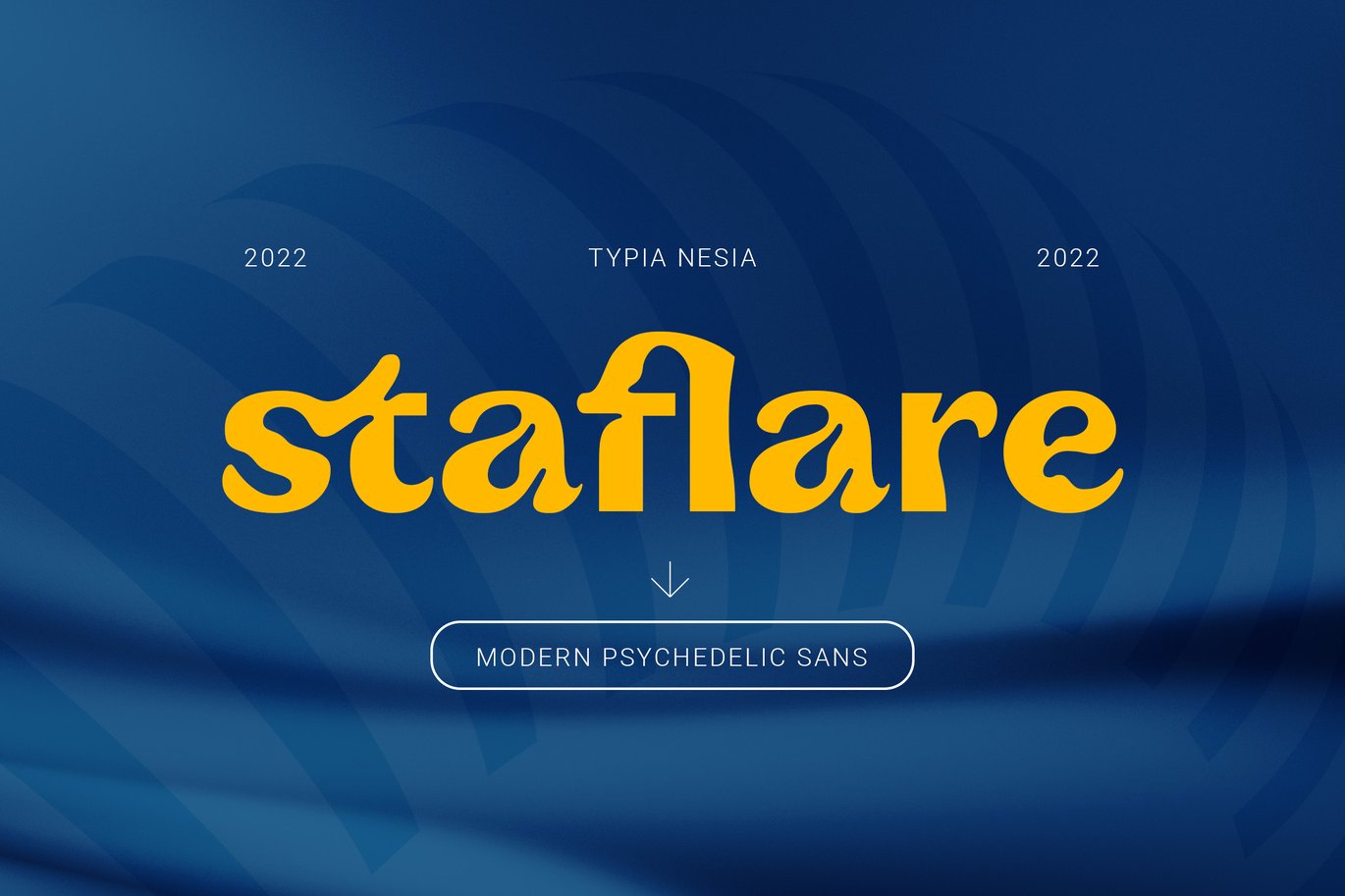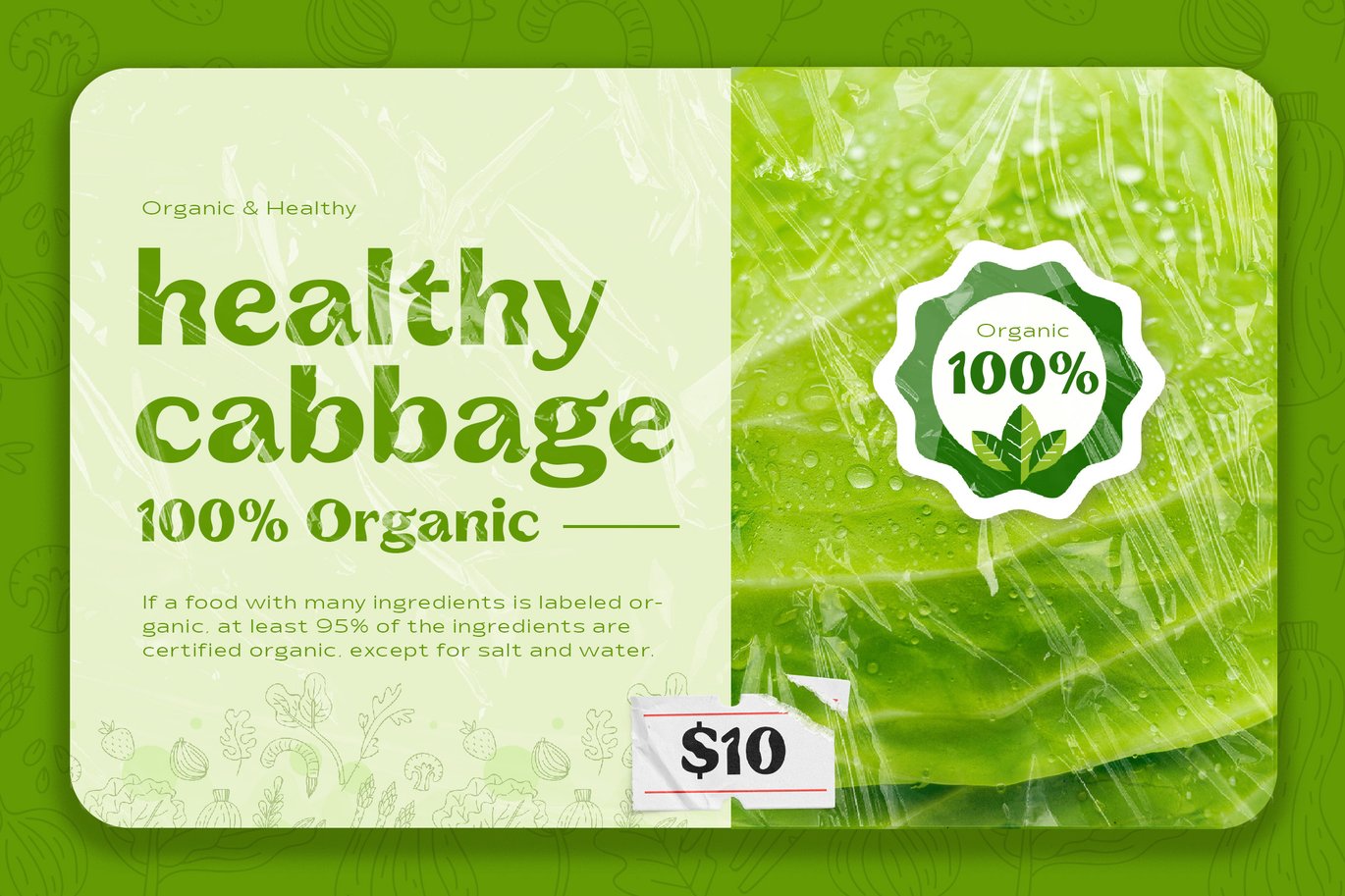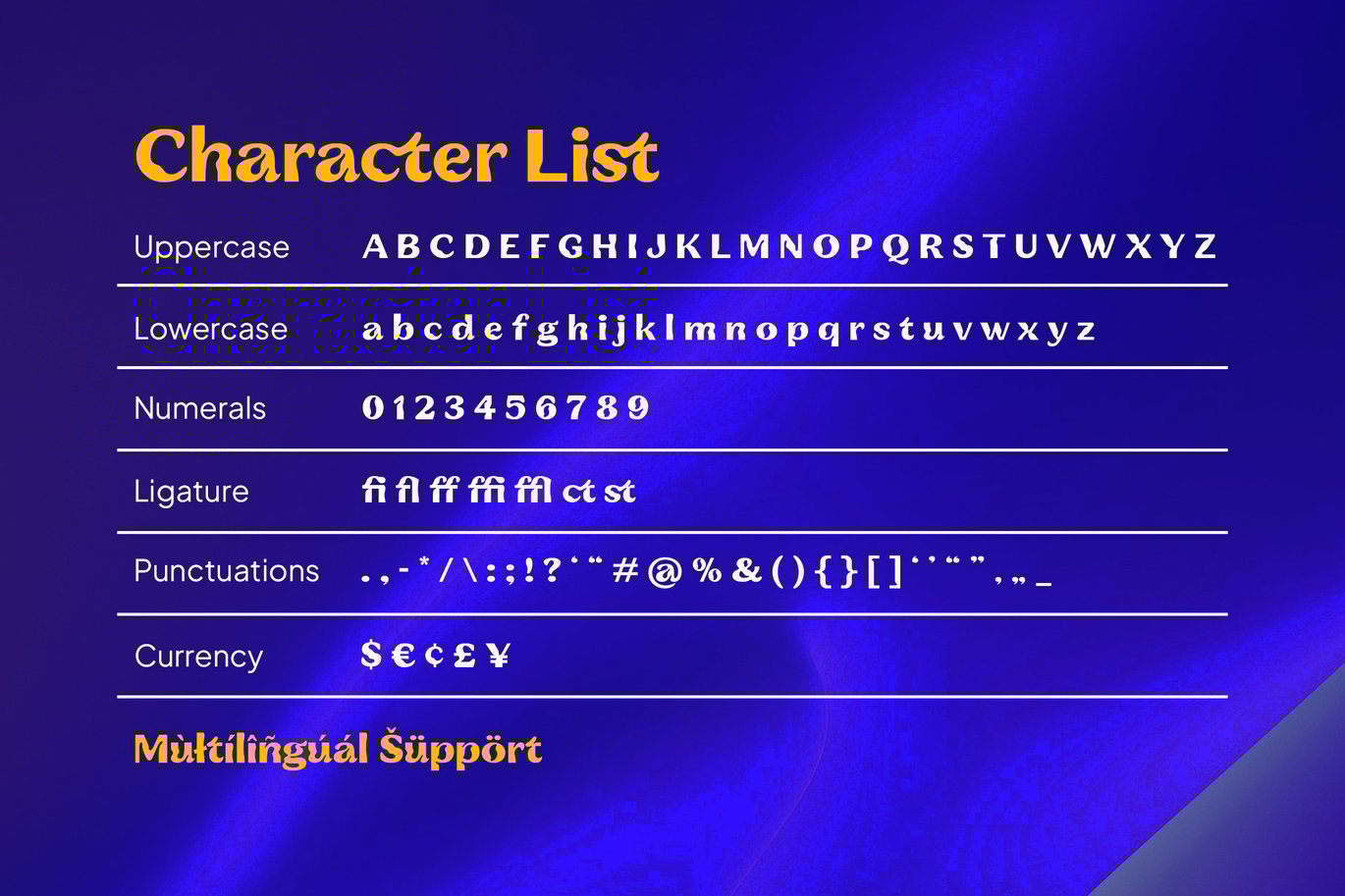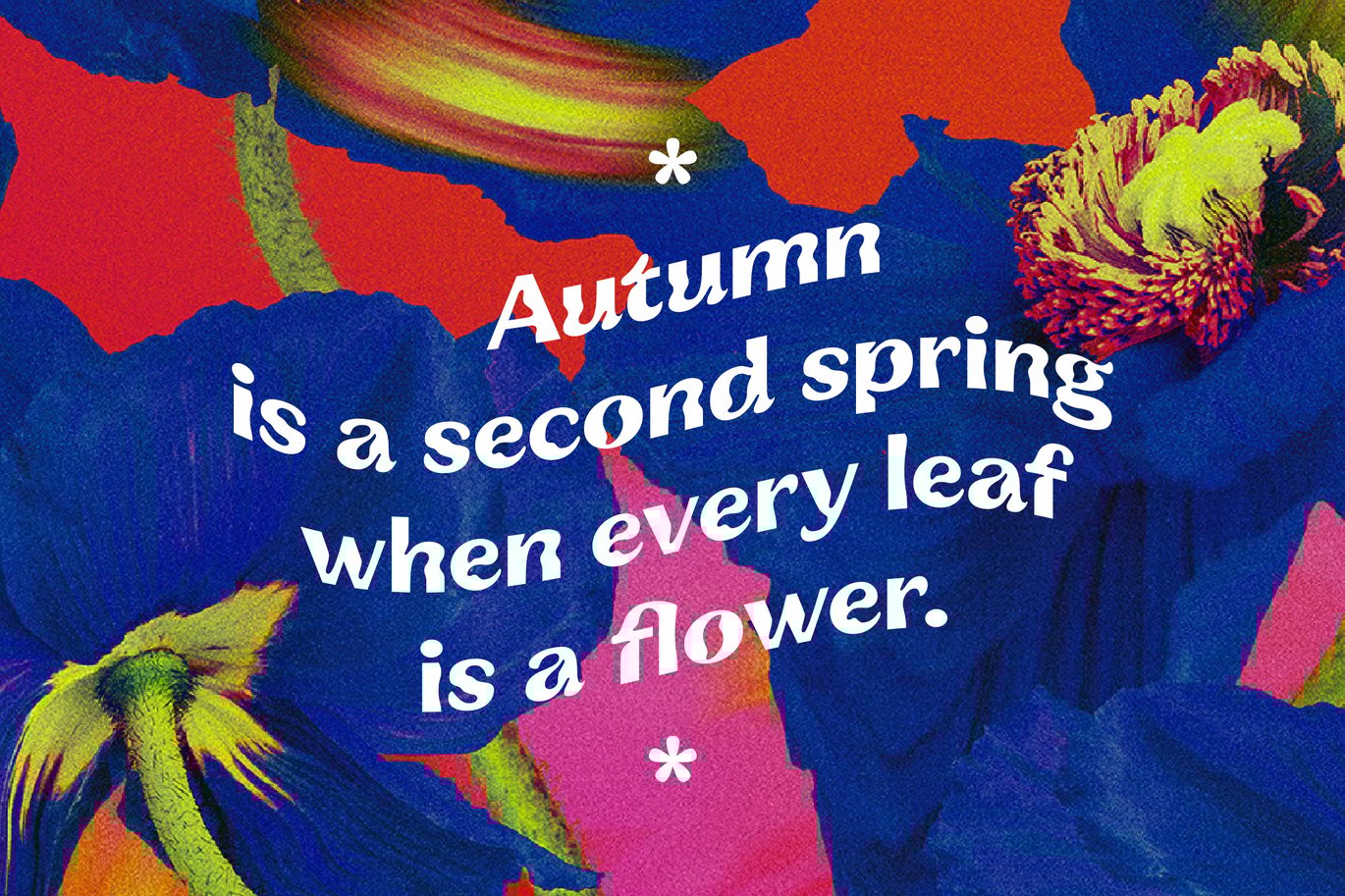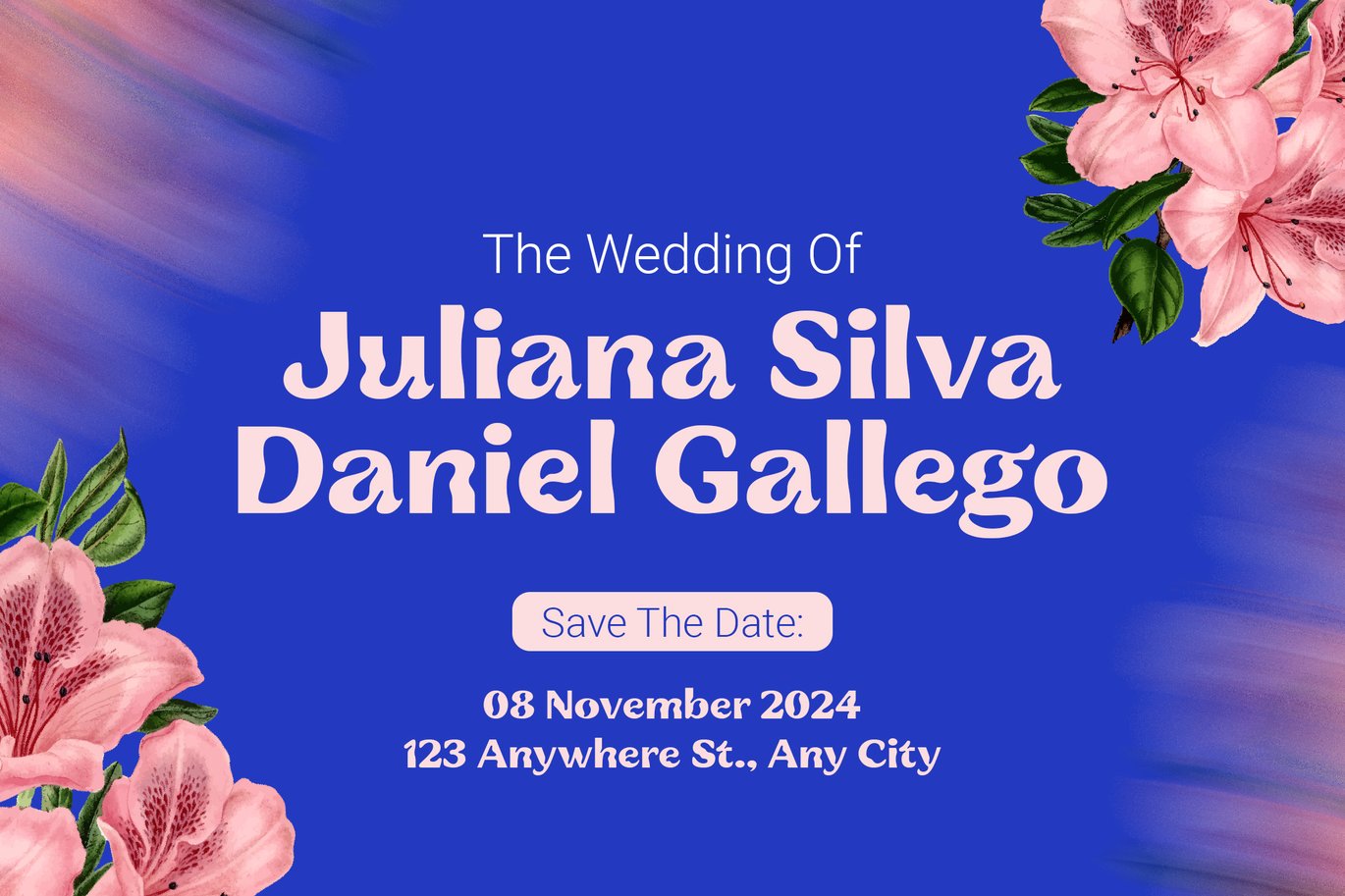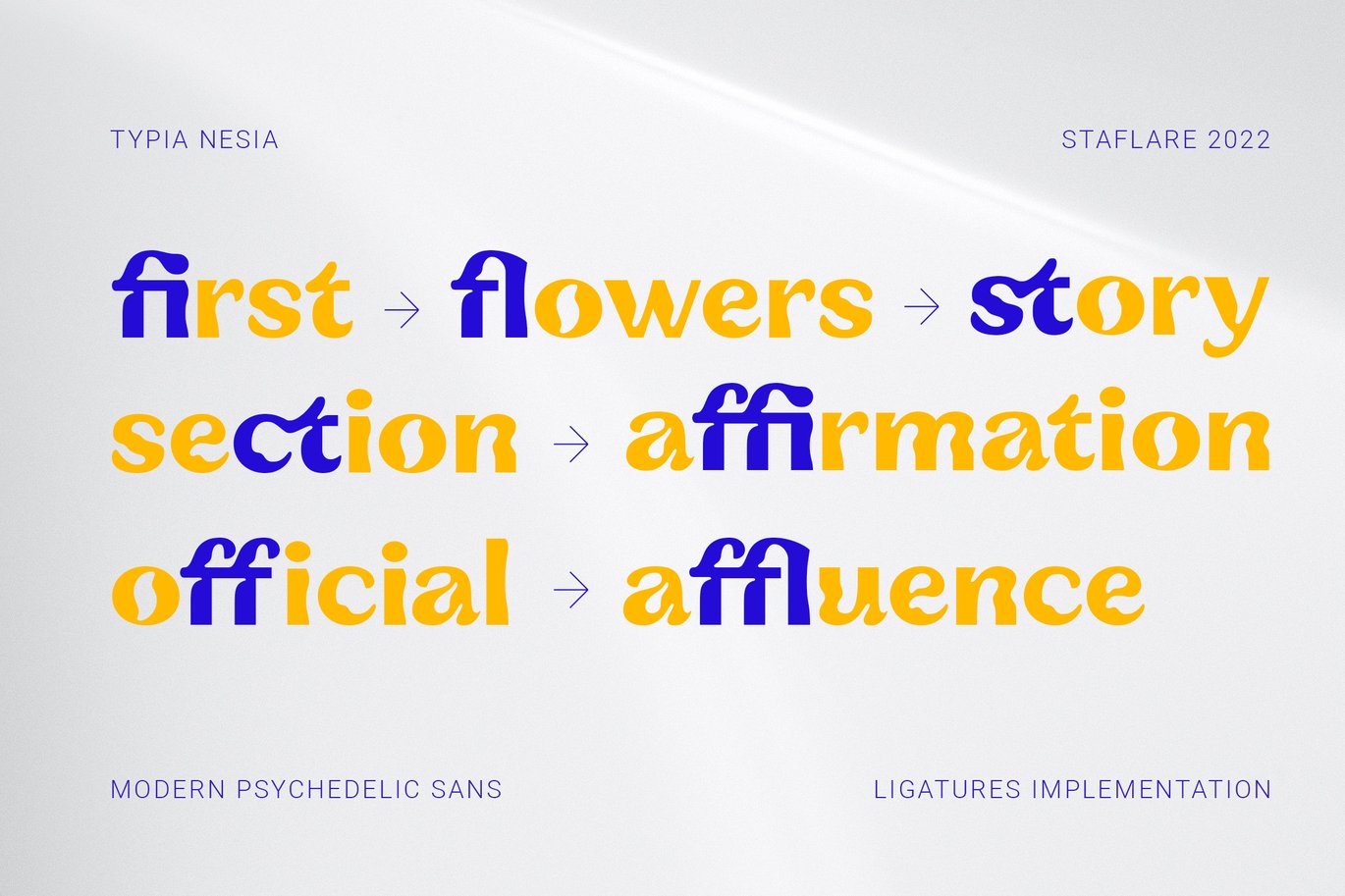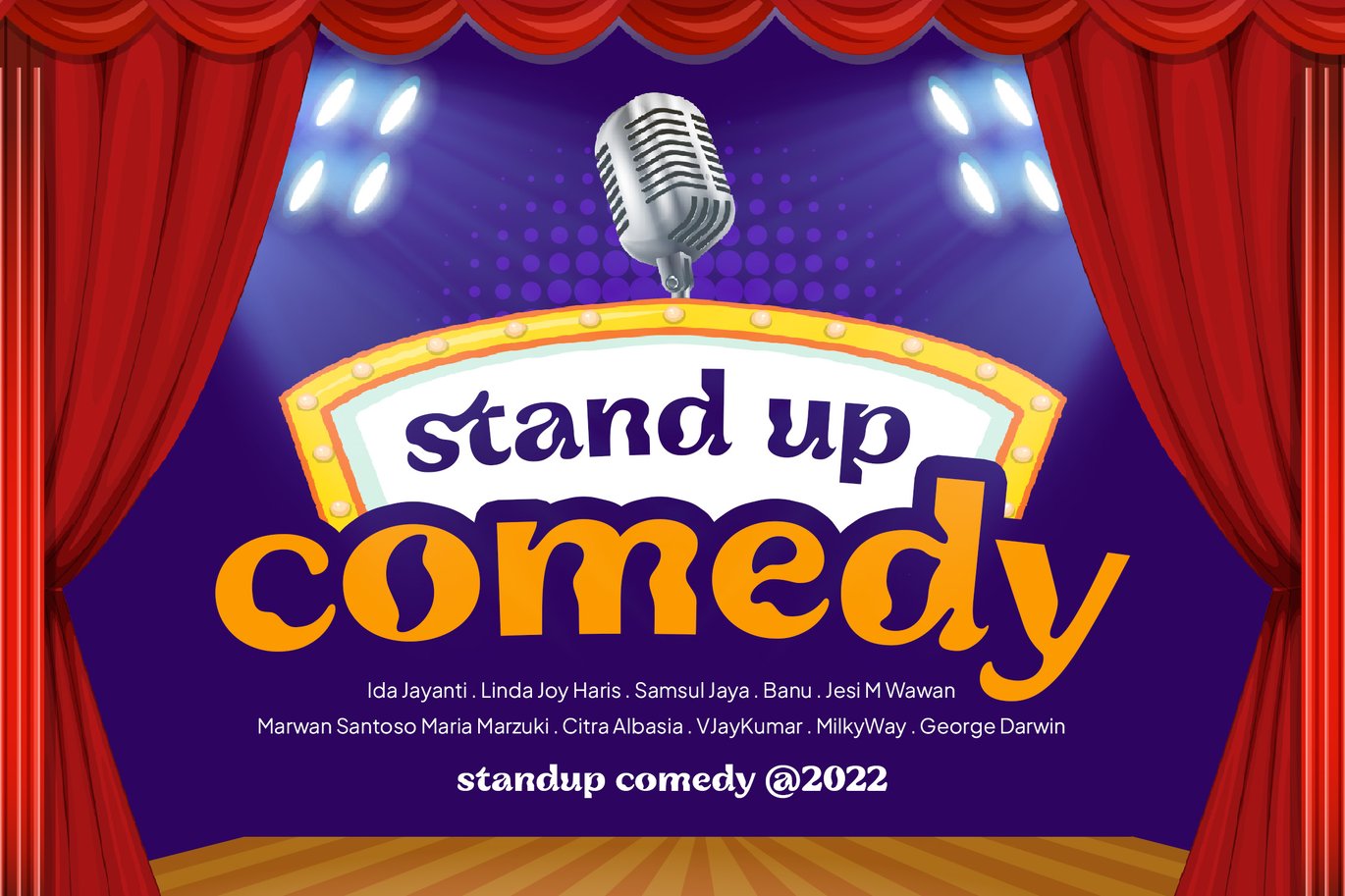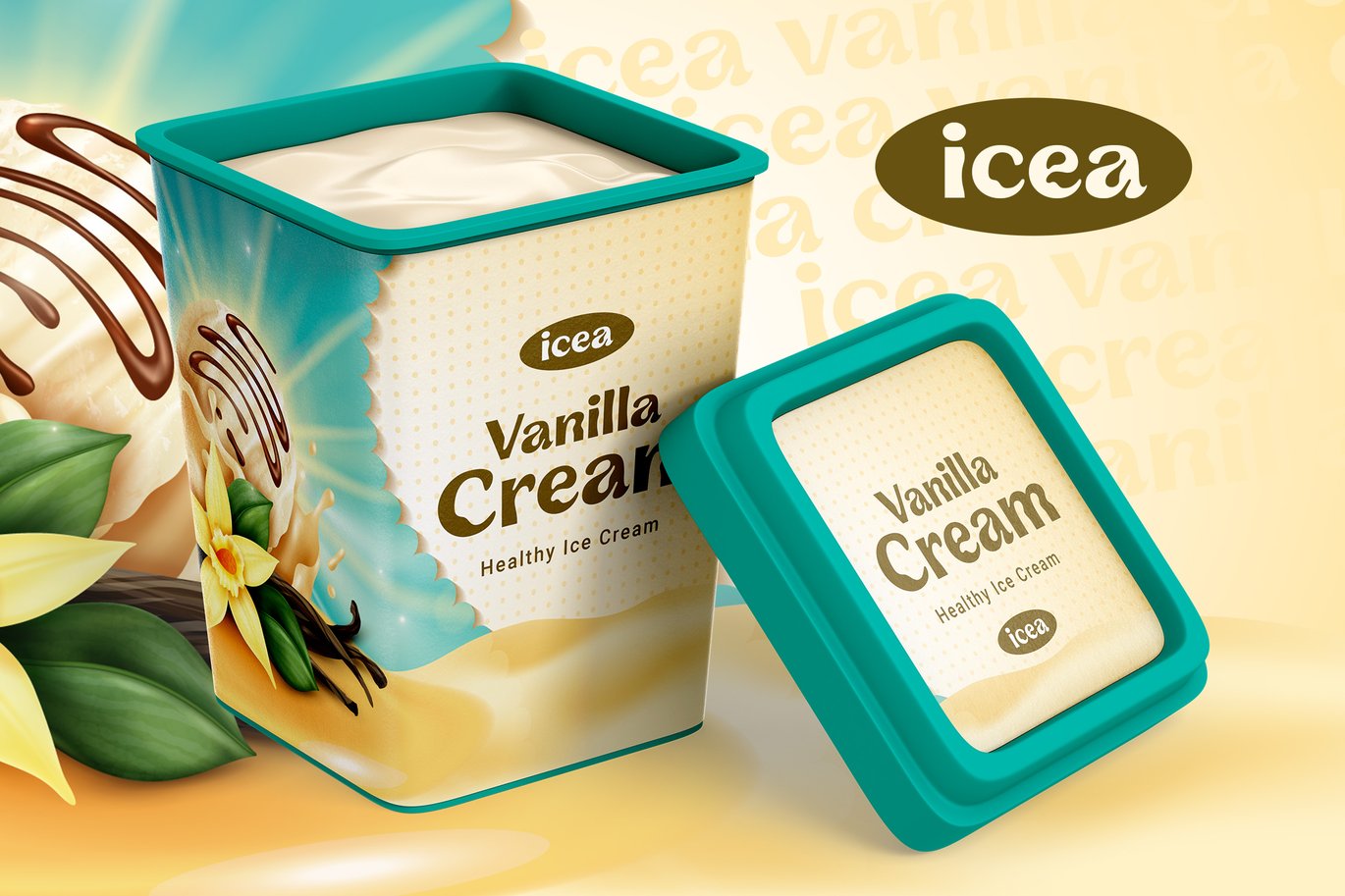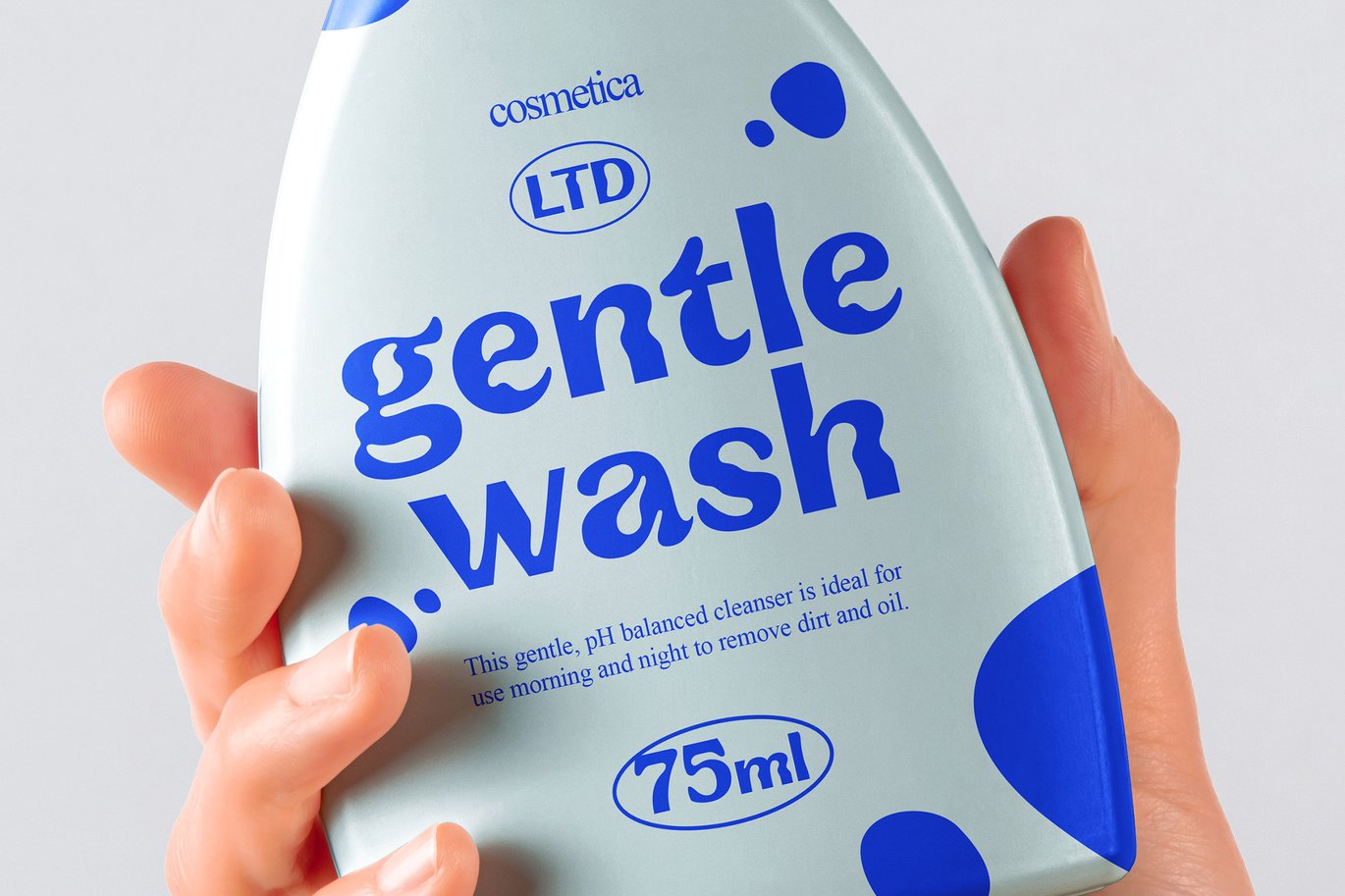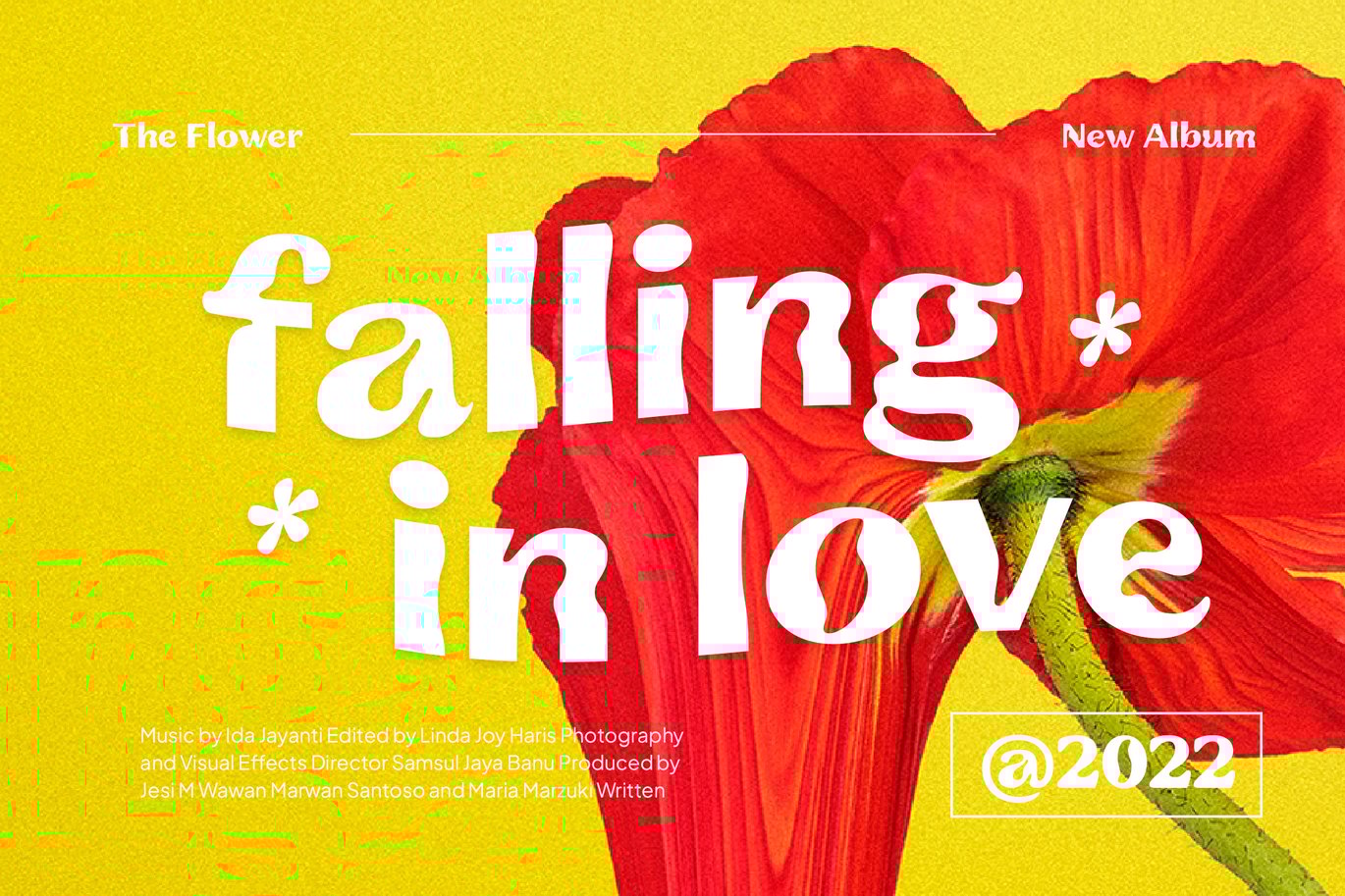
Staflare – Retro Psychedelic Display Sans Font
Staflare – Retro Psychedelic Black / Bold Display Sans – Expressive Brutalist / Pop Art Font
Suitable for any design needs : logo, branding, modern advertising design, vintage retro design, psychedelic design, adventure / mountain hiking brand, music poster, animation or movie, logos, retro summer poster quote, book / novel cover Title, movie animation, editorial design, website / blog, card, and more.